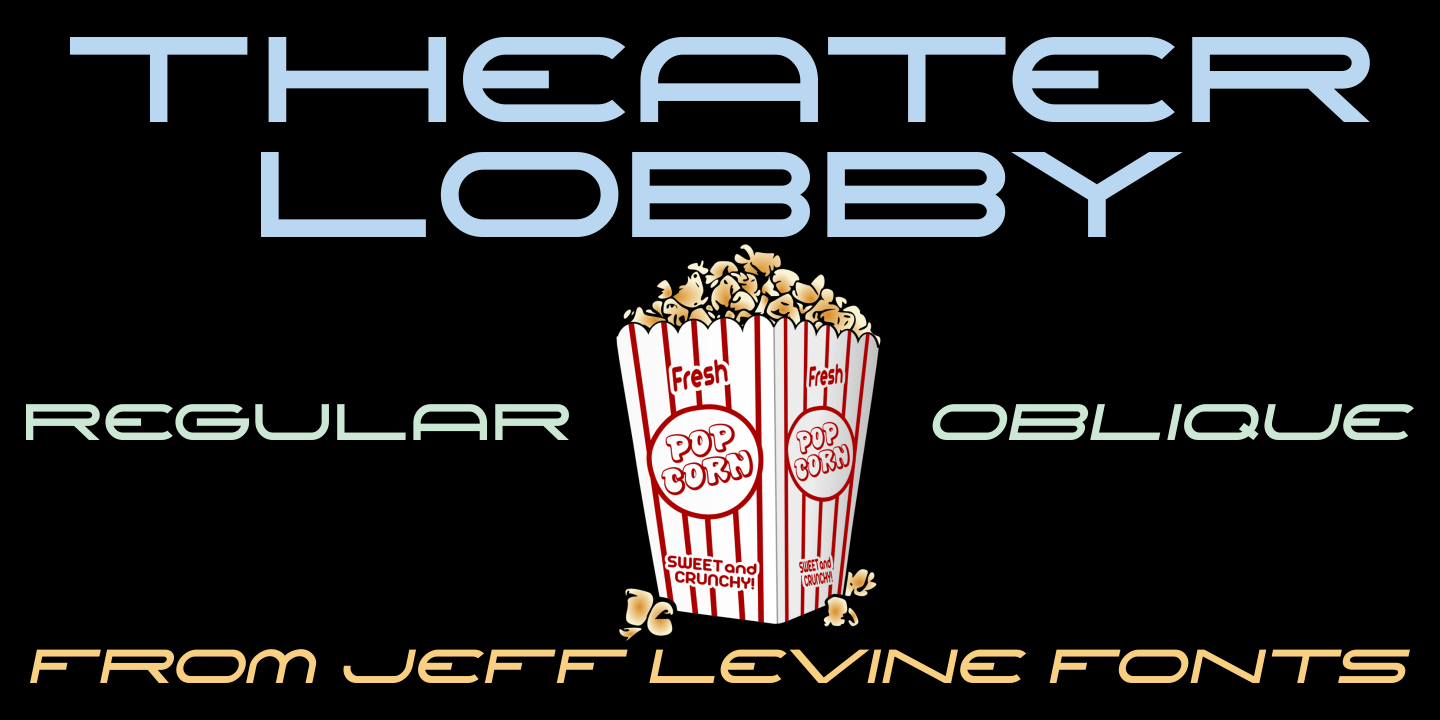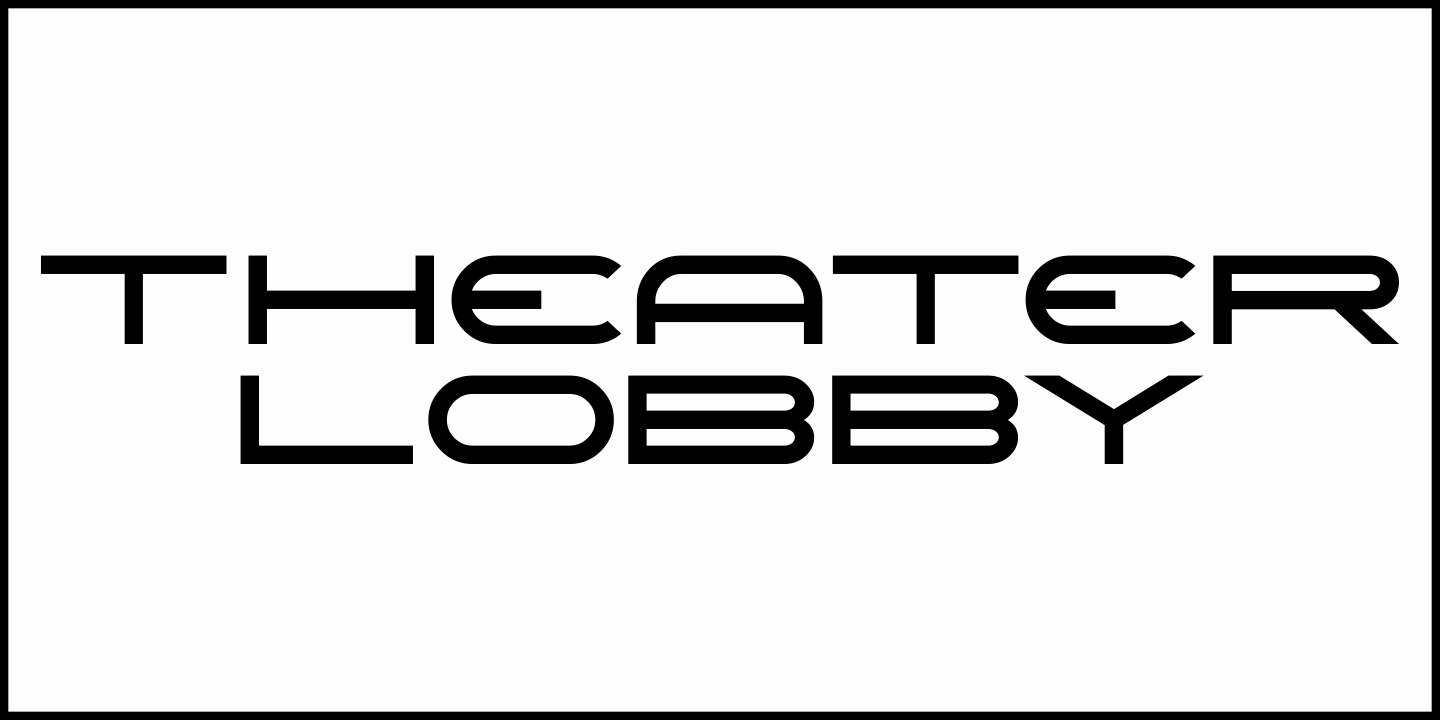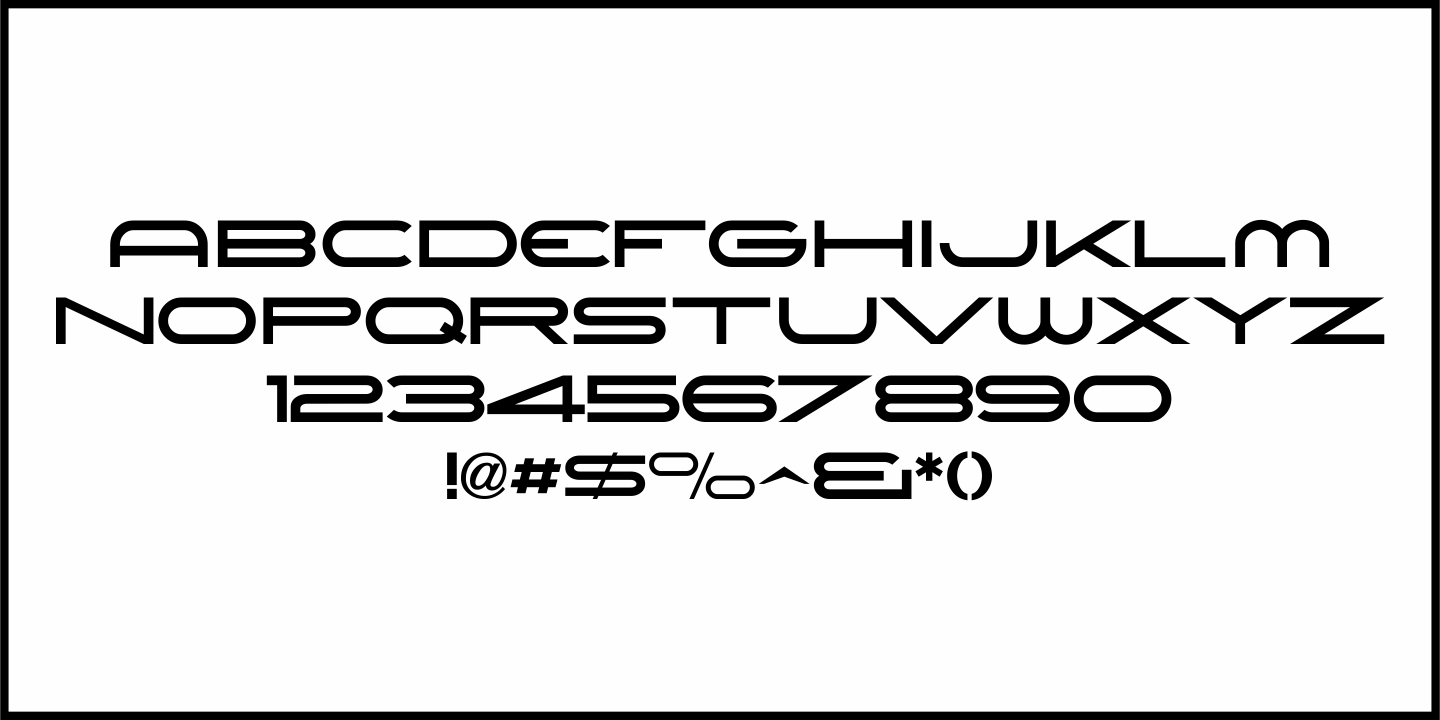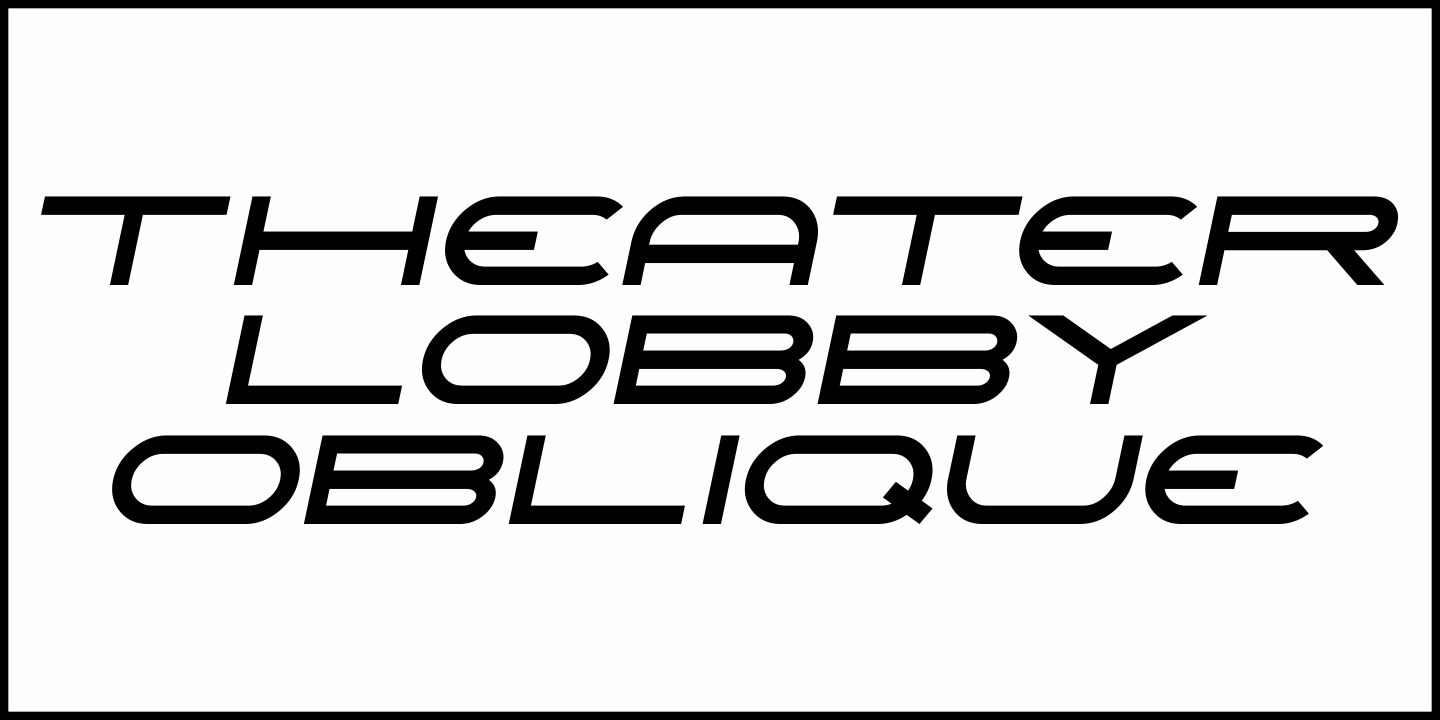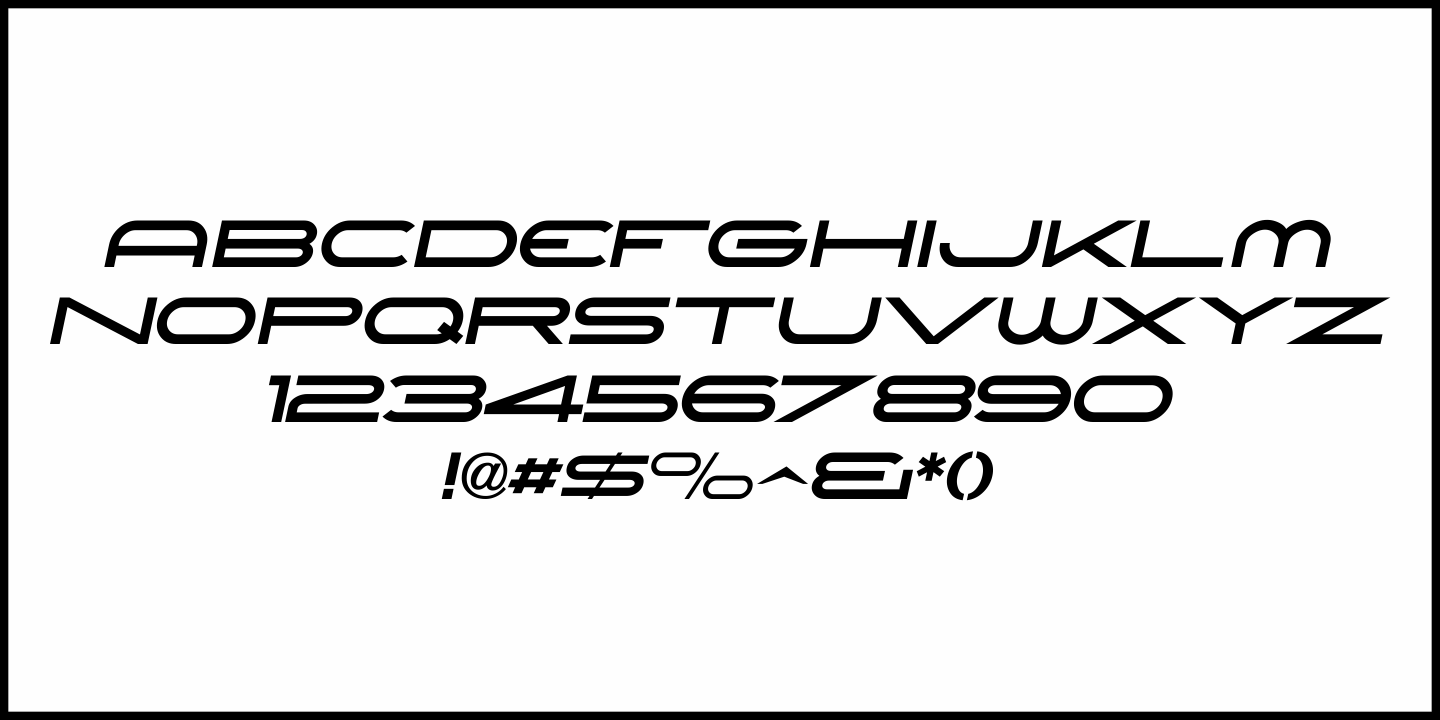
Theater Lobby
A vintage photo (circa 1950s) taken outside one of the movie houses owned at the time by Miami-based Wometco Theaters showed a small hand lettered sign with the word 'Wometco' painted in a stylized Art Deco alphabet..
This inspired Theater Lobby JNL, which is available in both regular and oblique versions.